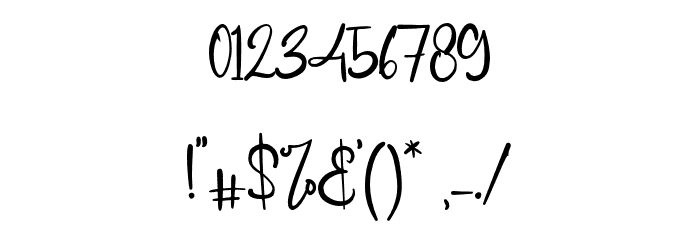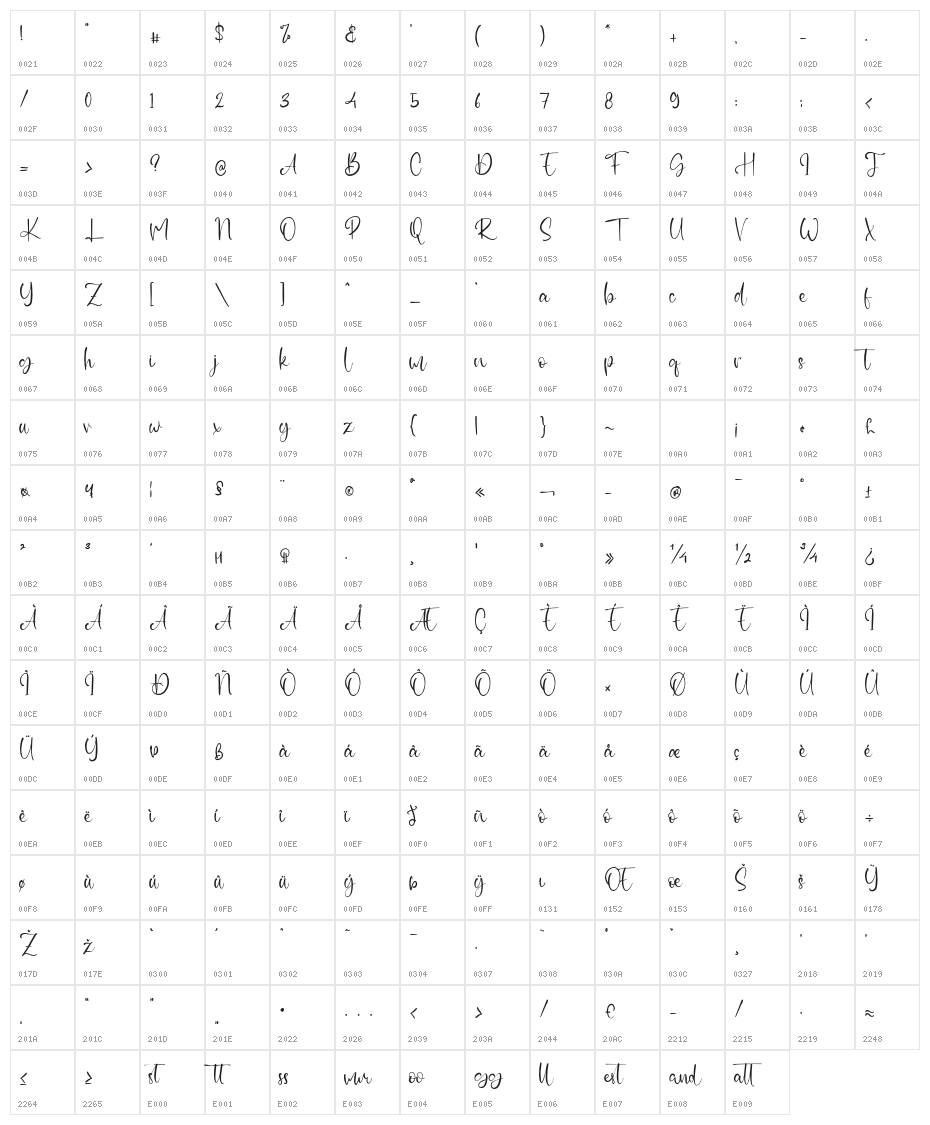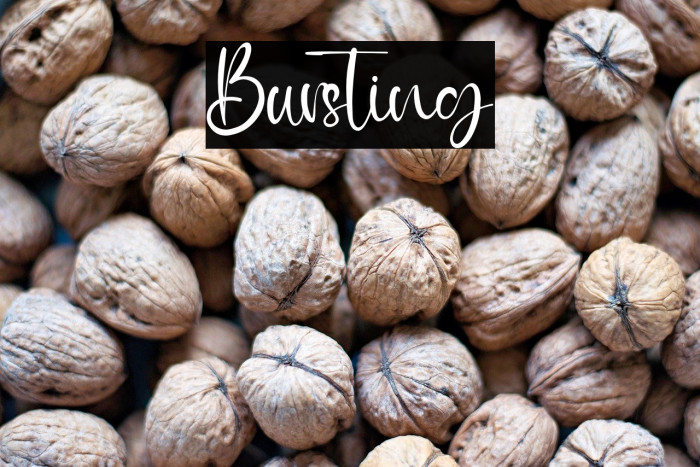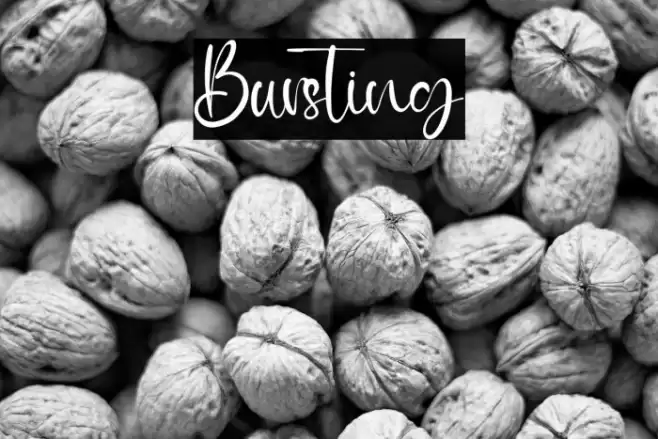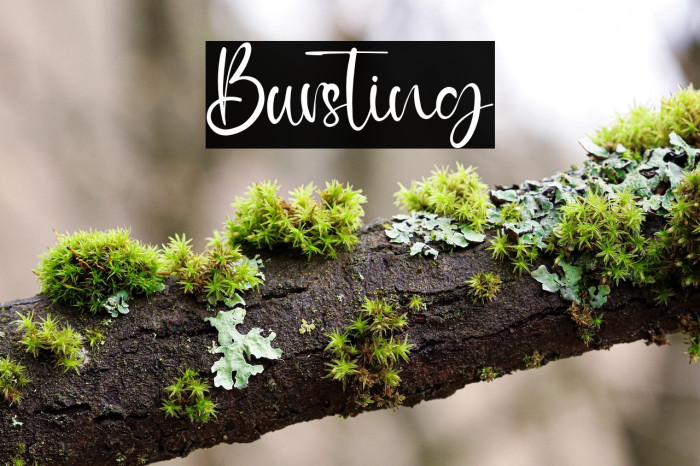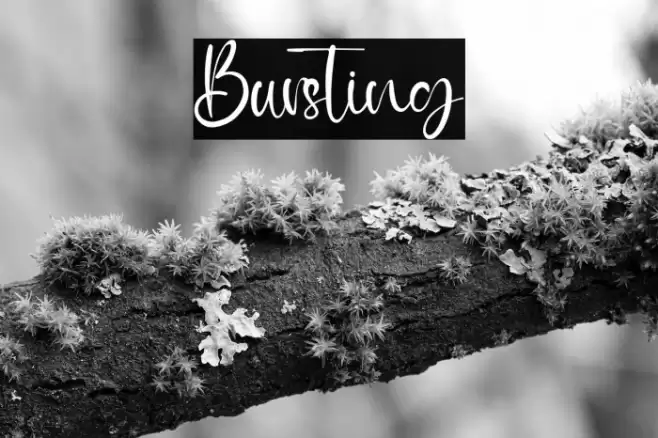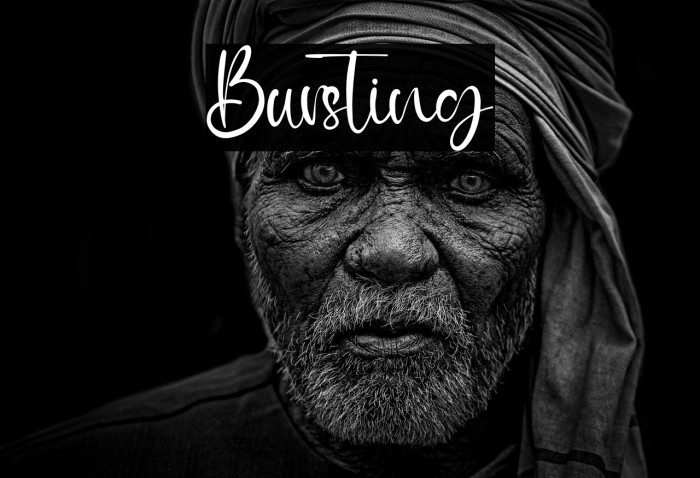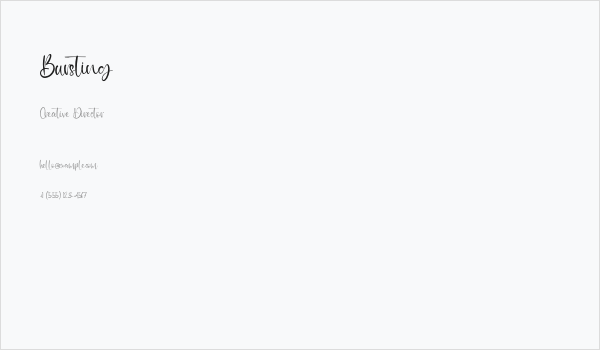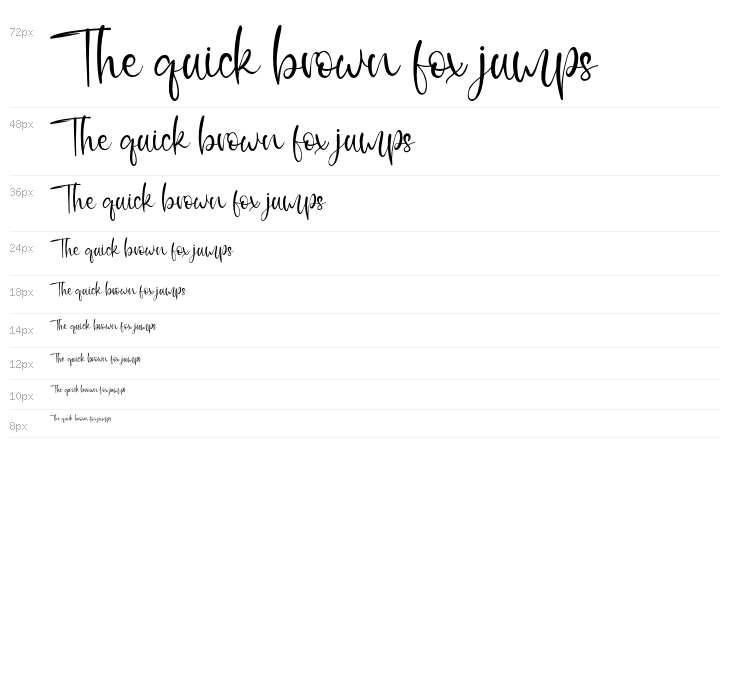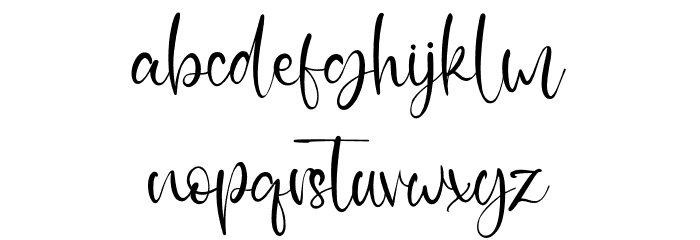
Bursting Font
Bursting Description
This font features a lively and expressive handwritten style with a playful and artistic flair. The uppercase letters are bold and dynamic, with varying stroke widths that add a sense of movement and energy. The lowercase letters maintain a consistent flow, with smooth curves and elegant loops that enhance its handwritten appeal. Numbers and special characters are crafted with the same attention to detail, ensuring a cohesive look across all elements. This font's unique style makes it ideal for creative projects that require a personal touch.
| Proposed Projects | Ideal for invitations, greeting cards, branding, and creative projects that require a personal and artistic touch. |